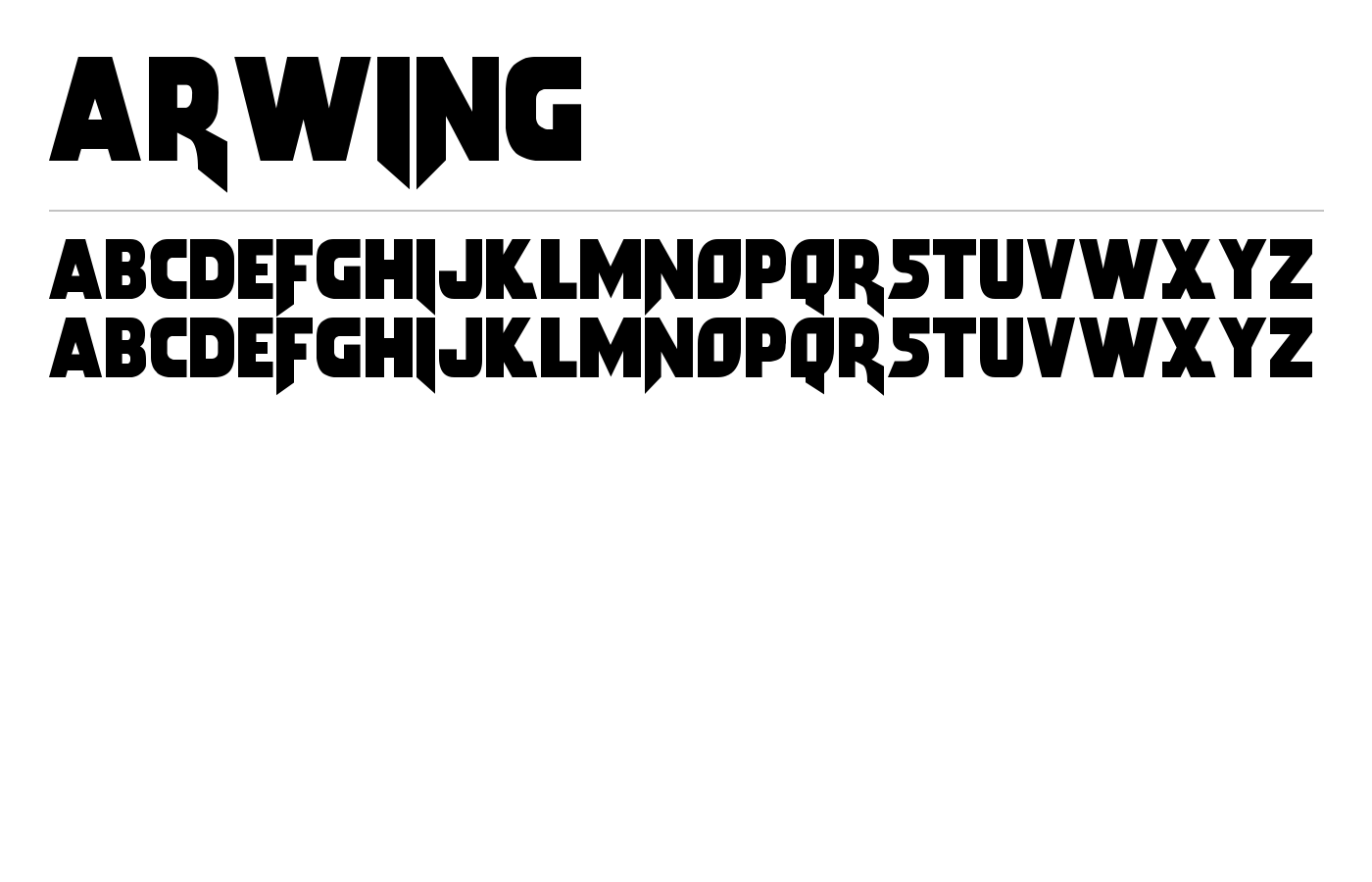
Arwing is a bold, sans serif display font with a strong, geometric structure and sharp, angular details that give it a futuristic and dynamic feel. Its heavy weight and condensed width combined with unique cut-out shapes in letters create a striking presence, ideal for headlines, logos, and branding where impact and modernity are key. This font works best for projects that require a bold, modern, and tech-savvy aesthetic.
Arwing Font